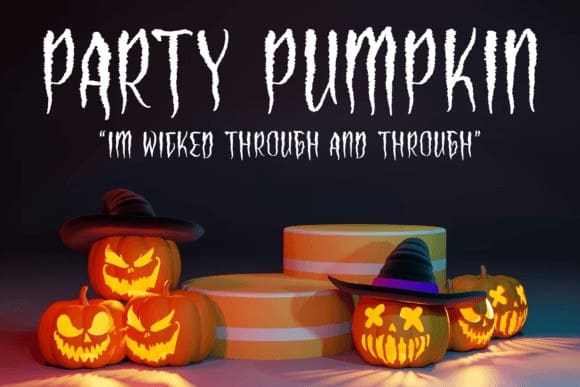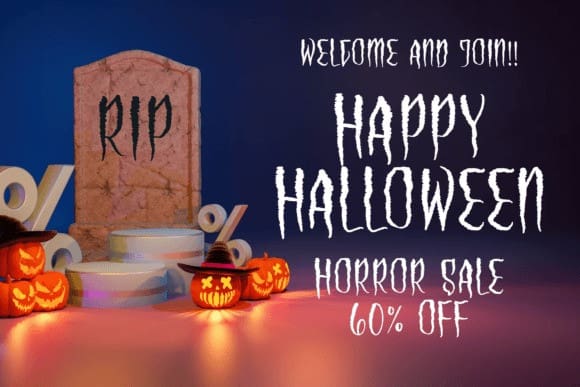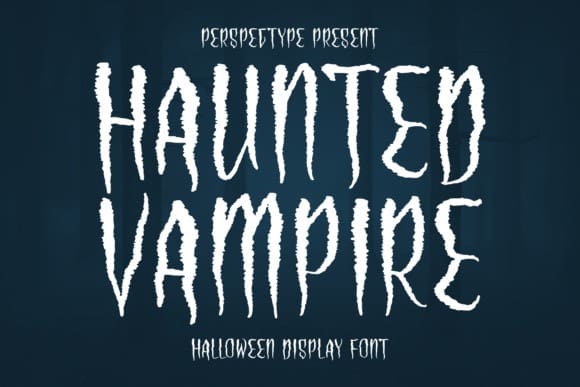
Haunted Vampire Font
Haunted Vampire Font – Halloween Handwritten font, suitable for any projects such as logos, branding projects, homeware designs, product packaging, mugs, quotes, posters, shopping bags, t-shirts, book covers, name cards, invitation cards, greeting cards, labels, photography, watermark, special events, and all your other lovely projects that need a beautiful and slightly spooky script taste.